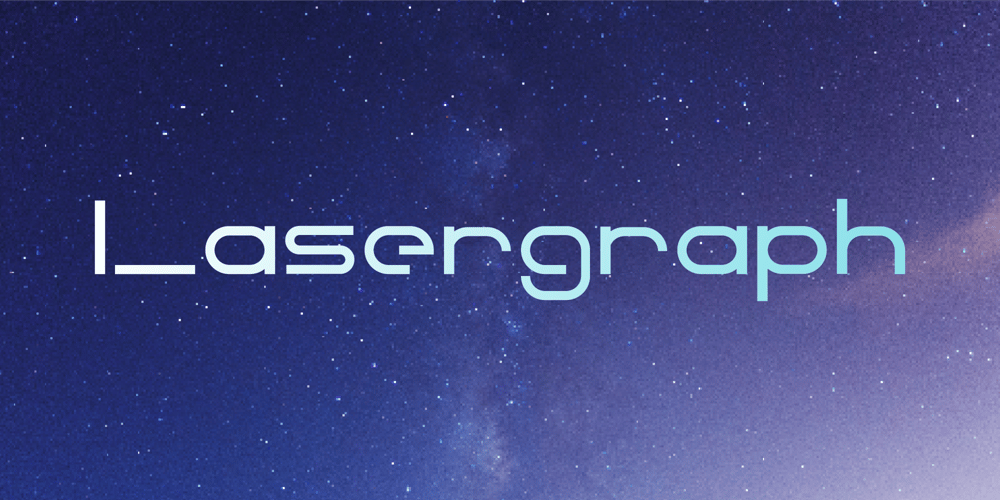
Lasergraph
Lasergraph font
Lasergraph Font Family was designed by hiroki kanda and published by hiroki kanda. Lasergraph contains 1 styles and family package options. It is a font created with images of space, movies and games in the near future.The font is futuristic yet has a retro vibe.